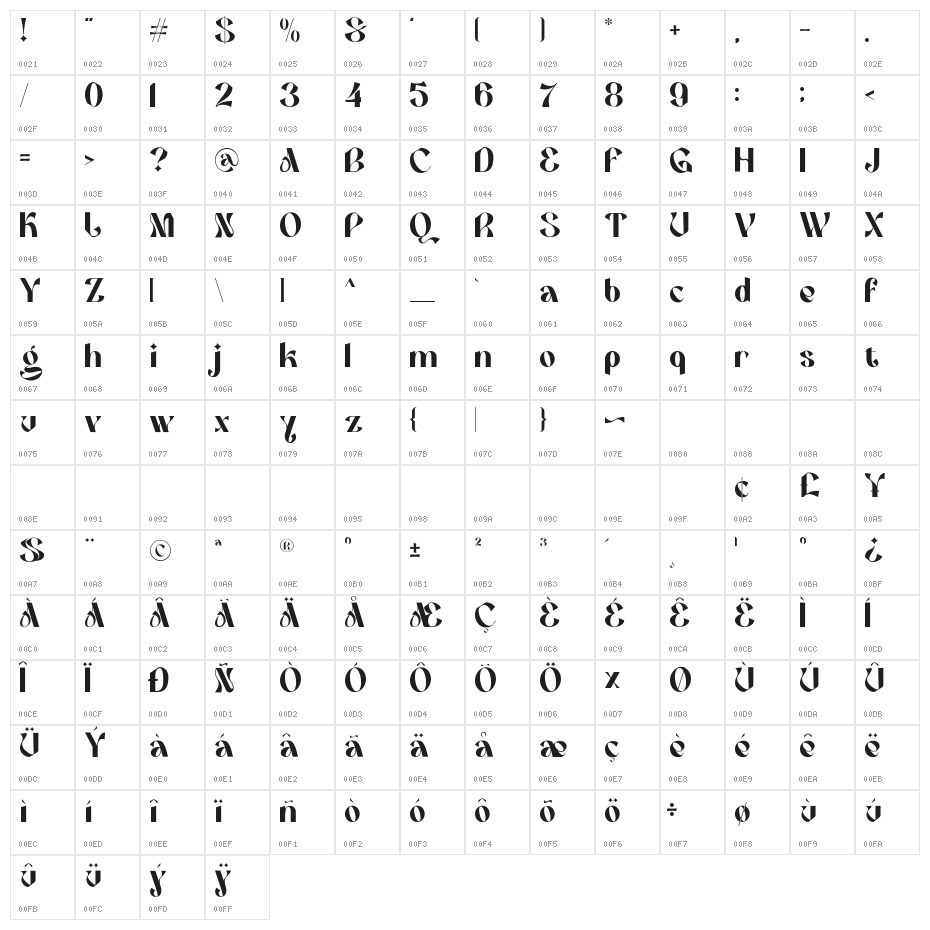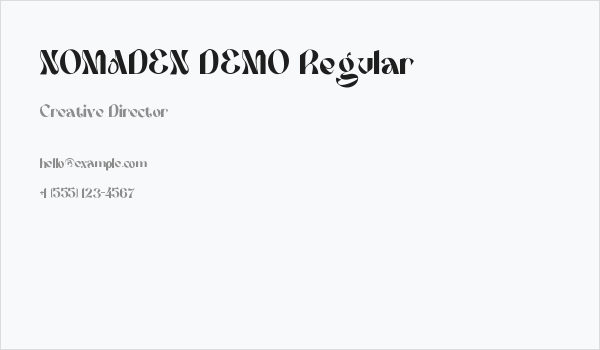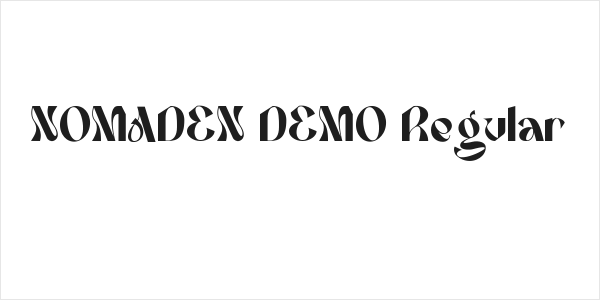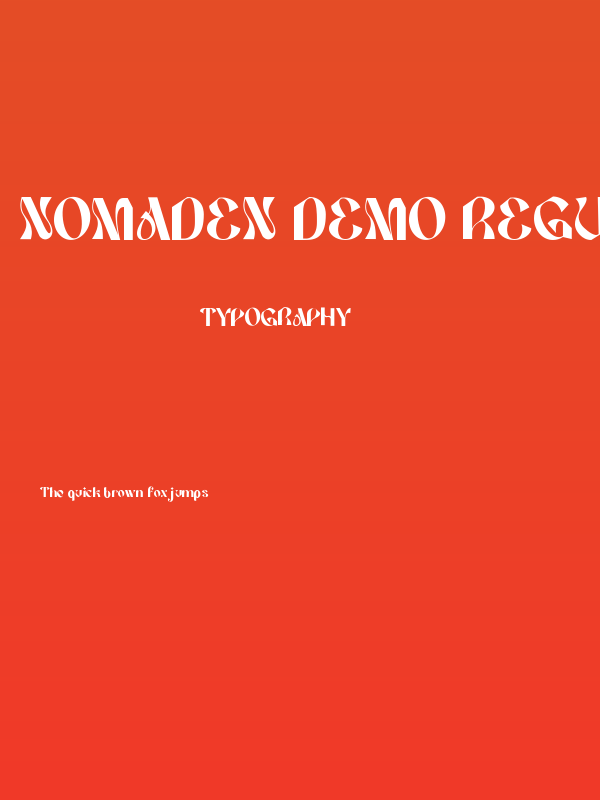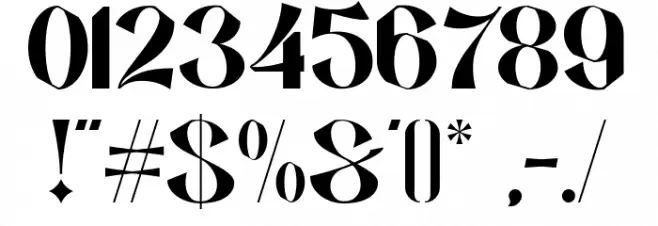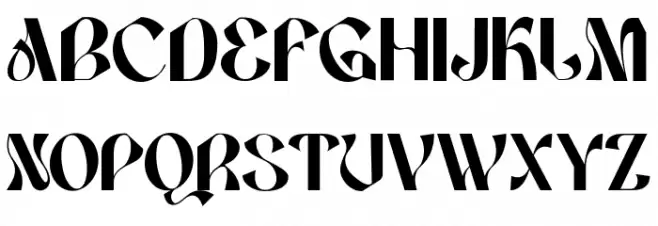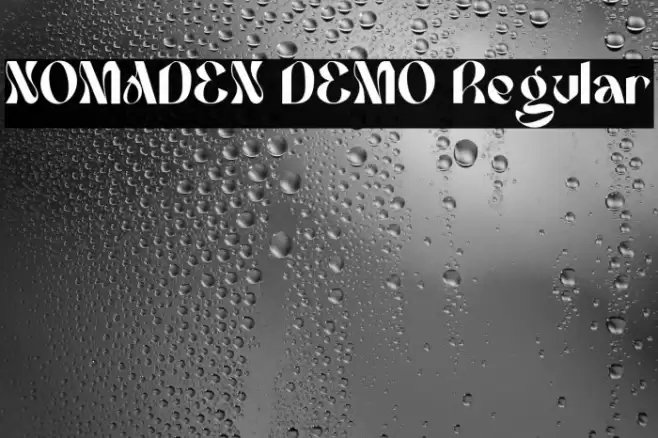
NOMADEN DEMO Regular Font
NOMADEN DEMO Regular Description
A decorative, stylized serif font with a bold and artistic appearance, featuring sharp angles and unique character shapes.
Nomaden DEMO
| Overall Style | Decorative, Artistic |
| Use Case | Headlines, Logos, Branding, Posters |